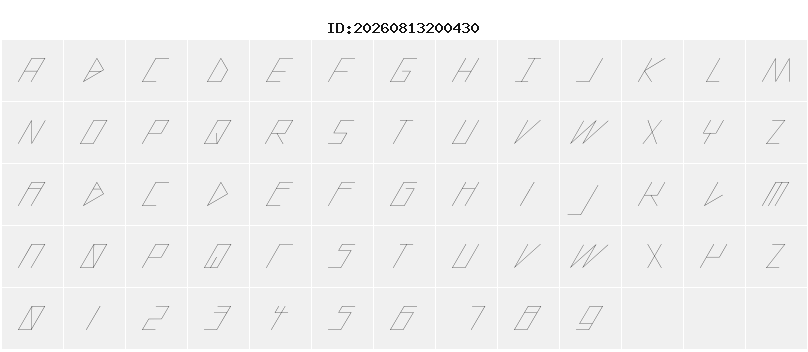
• Font Name: slanted ITALIC shift
• Font Style: Thin
• Designer: Manuel Viergutz
About slanted ITALIC shift.otf
slanted ITALIC shift.otf is a modern, elegant sans-serif font designed for ultimate readability and visual harmony. Perfect for branding, headlines, web design, and print materials.